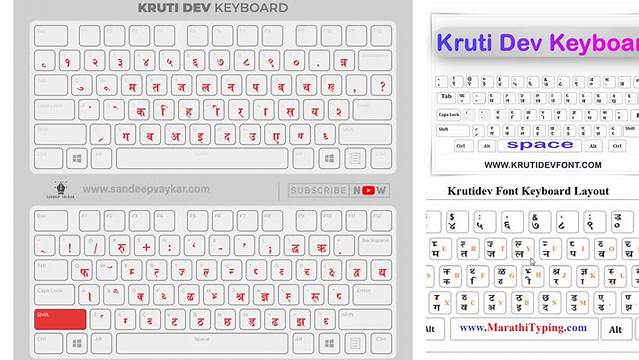
1. What is Kruti Dev Font?
Kruti Dev is a widely used legacy font for typing in Marathi and Hindi. It's a non-Unicode font, meaning it uses a specific character encoding system. For years, Kruti Dev has been the go-to font for various government and private sector jobs requiring Marathi typing. It’s known for its distinctive style and ease of use, especially for those trained on traditional typewriters. But what exactly makes it so popular, and why might you need it even today?
Understanding the Importance of Kruti Dev Font
The significance of Kruti Dev lies in its historical context and widespread adoption. Many older documents, websites, and official records are formatted using this font. If you need to access, edit, or create documents that align with these standards, having Kruti Dev is essential. Furthermore, many typists are trained in Kruti Dev, making it a familiar and efficient choice for them. So, while newer Unicode fonts offer broader compatibility, Kruti Dev remains relevant in specific scenarios. Imagine trying to open an old file only to find the text garbled – that’s the importance of having the right font!
Key Features of Kruti Dev Font
Kruti Dev boasts several features that contribute to its popularity. Firstly, its legibility is excellent, making it easy to read even in small sizes. The font's design mimics traditional Devanagari script, providing a familiar and professional look. Secondly, it’s easy to install and use, even on older systems like Windows 7. Finally, the widespread availability of typing tutorials and resources in Kruti Dev makes it a user-friendly option for many. Think of it as the classic, reliable pen in the digital world of fancy styluses!